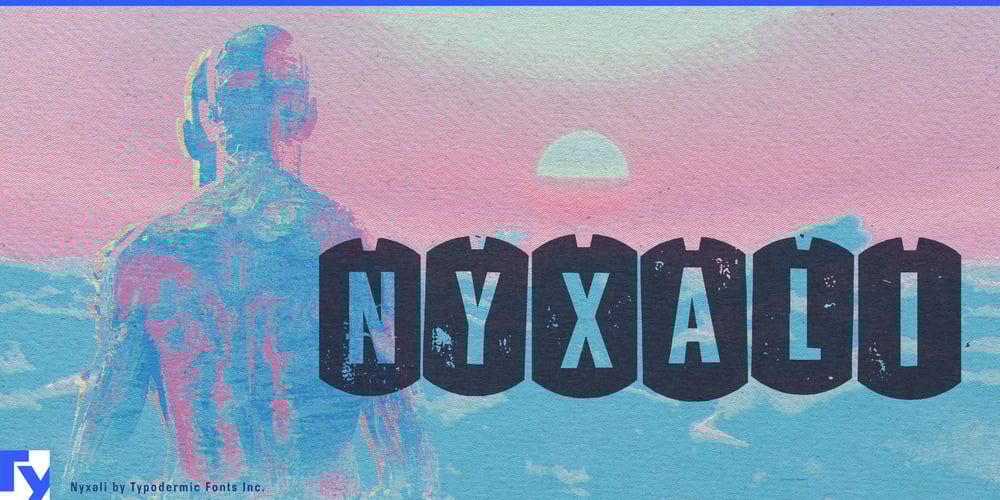
Nyxali
Nyxali font
Nyxali Font Family was designed by Ray Larabie and published by Typodermic. Nyxali contains 1 styles and family package options. Nyxali is a symphony of steel, hammers striking hot metal, and machines stamping their will onto unyielding surfaces. Born in the heart of industry, each character bears the marks of its creation—misaligned edges, irregular strokes, and the unmistakable patina of weathered metal.But beneath its rusted exterior, Nyxali harbors secrets. Cleverly crafted letter pair ligatures break the expected rhythm, introducing an element of cryptic intrigue. Like hidden welds in a complex machine, these connections add sophistication to Nyxali’s brutalist charm. Nyxali speaks the language of global industry, its extensive character set spanning most Latin-based European writing systems. From the shipyards of Hamburg to the steel mills of Pittsburgh, it ensures your message maintains its edge.In a design landscape often dominated by sleek minimalism, Nyxali stands as a monument to the beauty of imperfection. It’s for brands unafraid to show their rough edges, for messages that cut through the noise with the subtlety of a sledgehammer. From gritty event posters to hard-hitting headlines, Nyxali transforms words into visceral experiences.